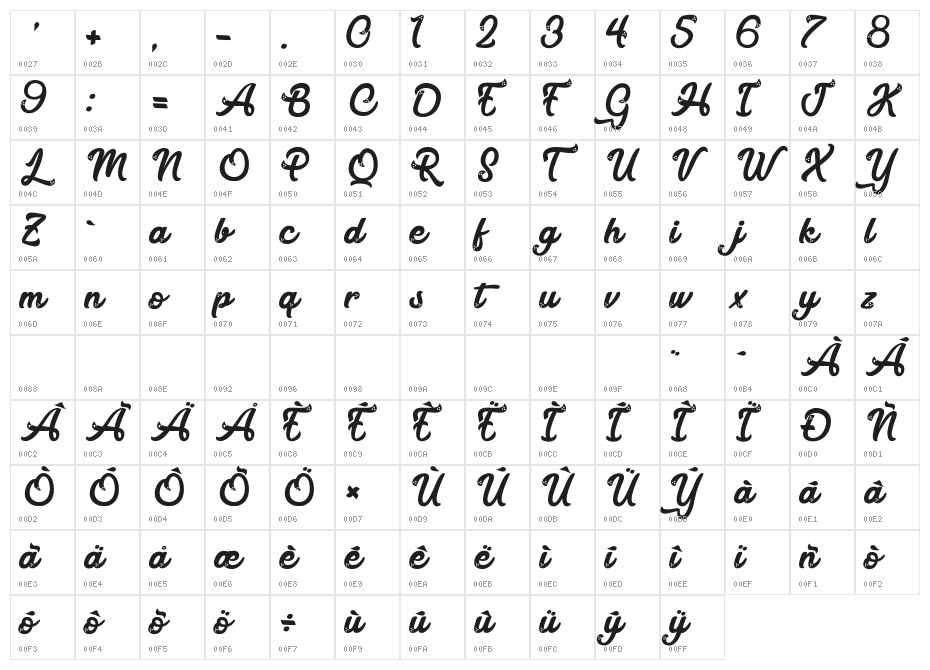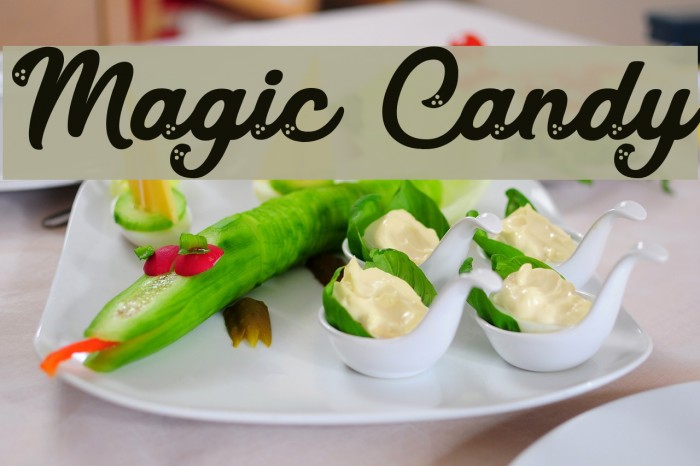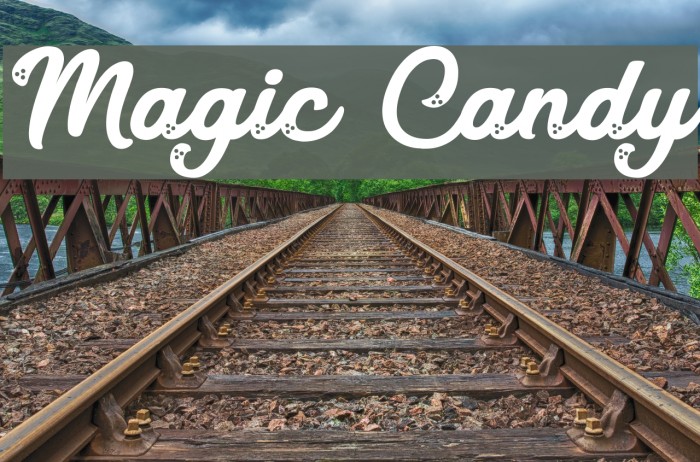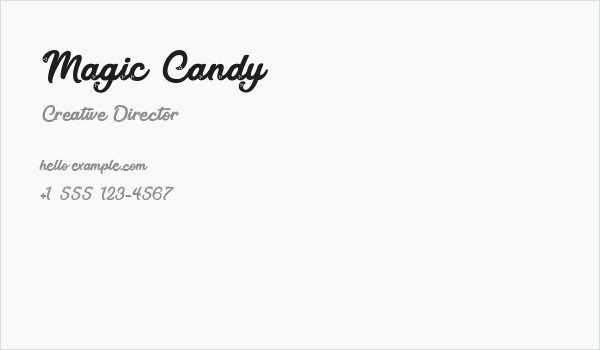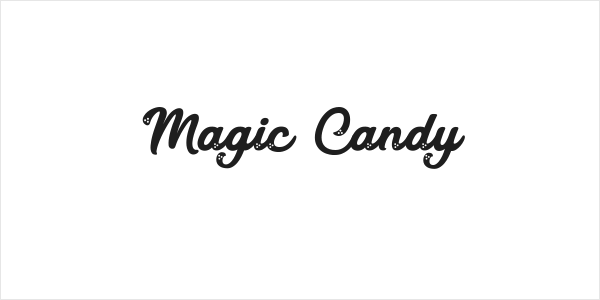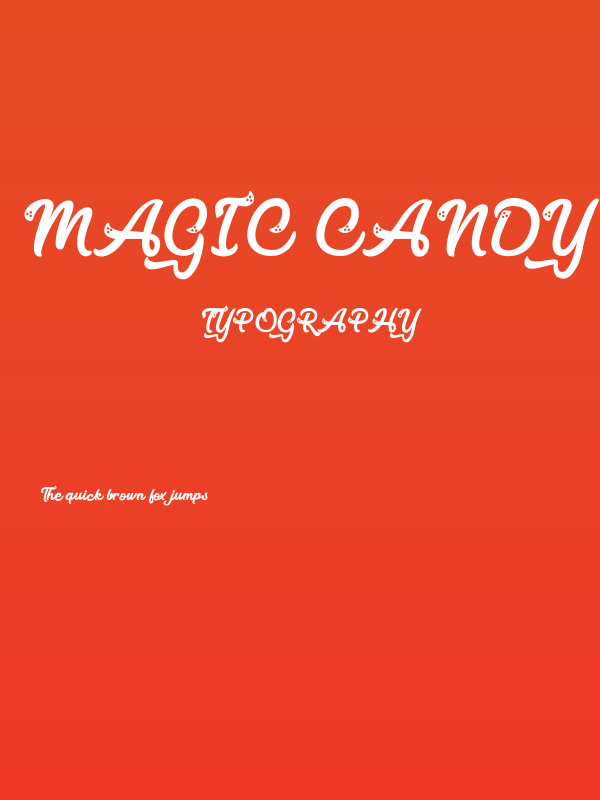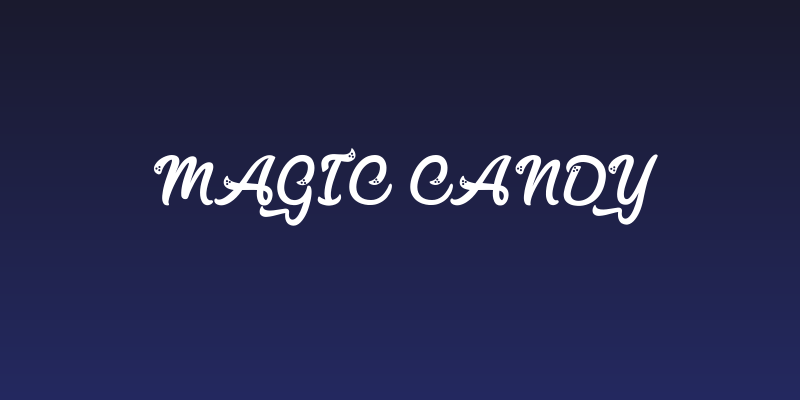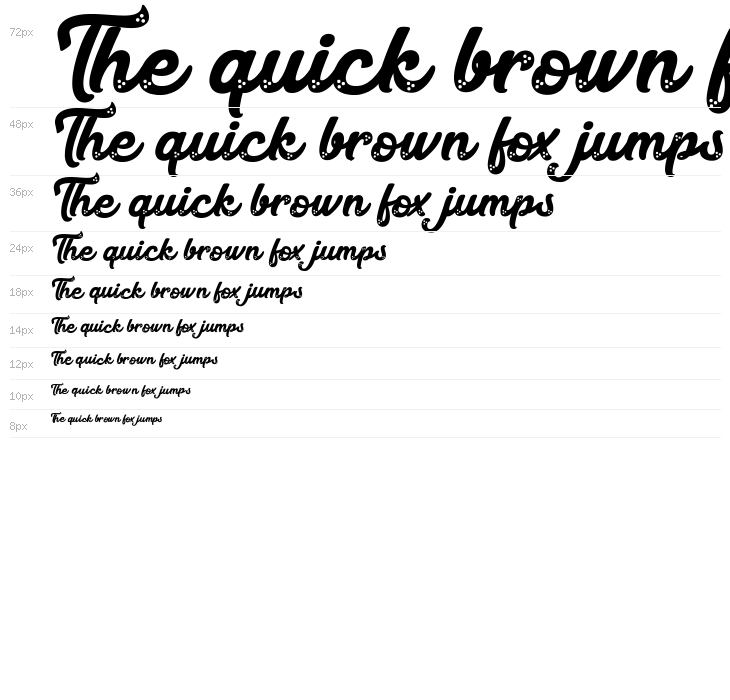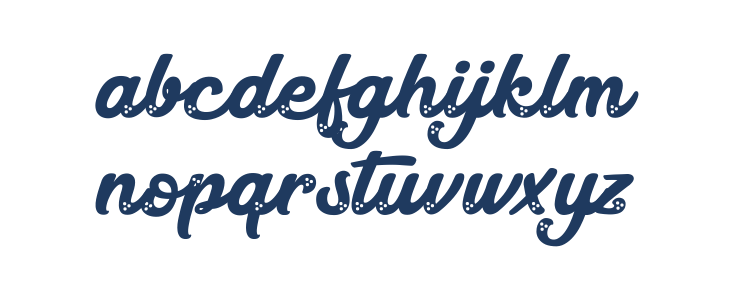
Magic Candy Font
| 使用场景 | Logos, Headlines, Posters |
| 推荐项目 | Ideal for children's book covers, playful branding, party invitations, and whimsical posters. |